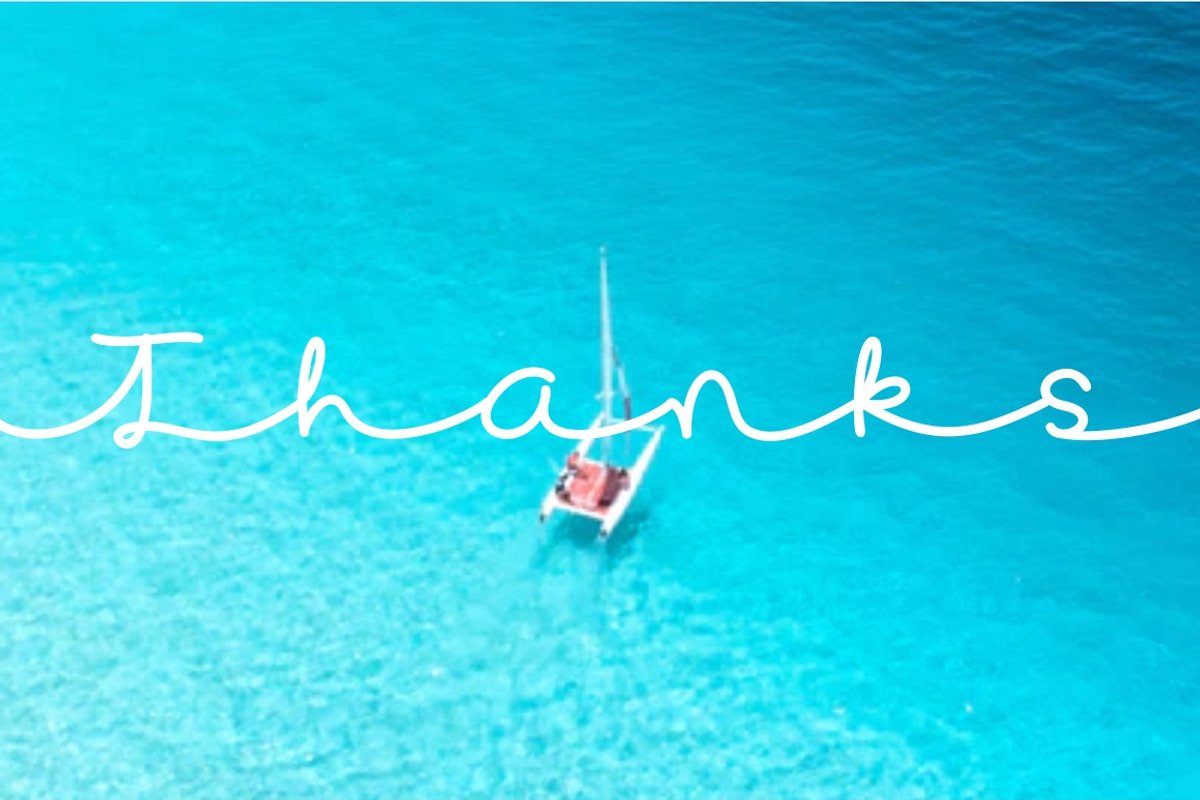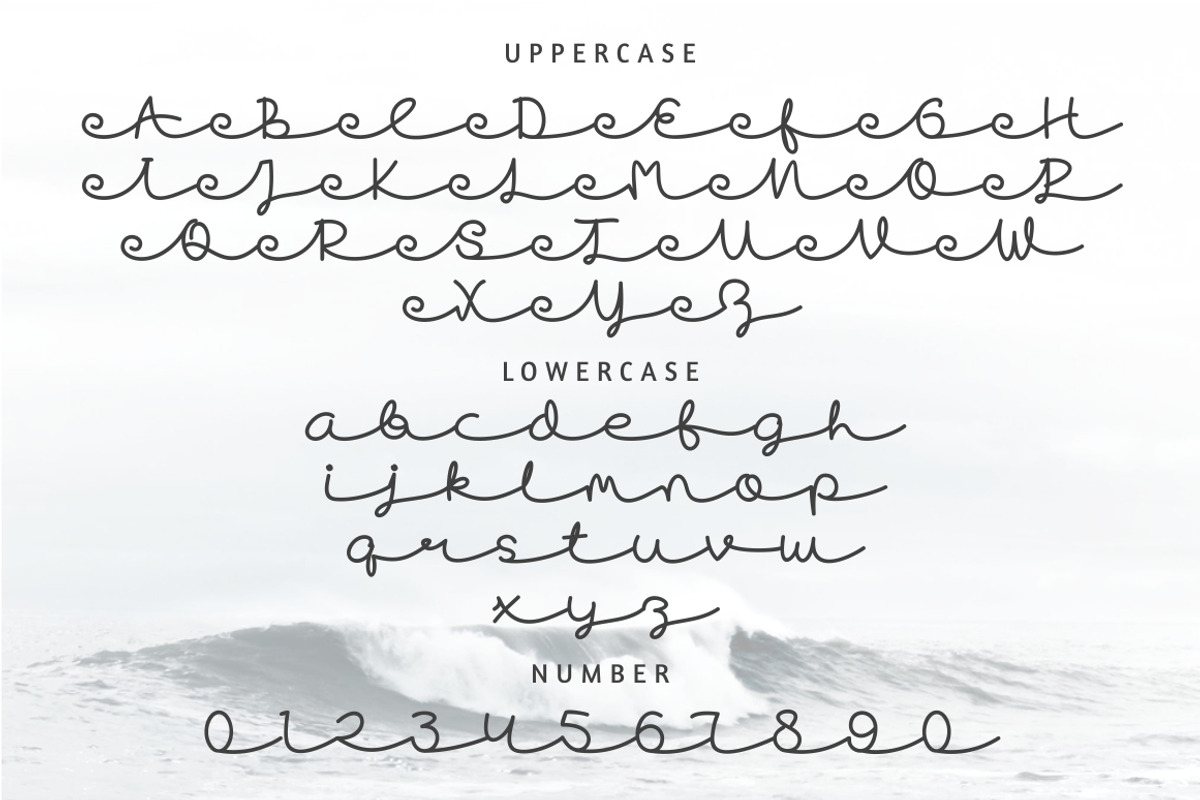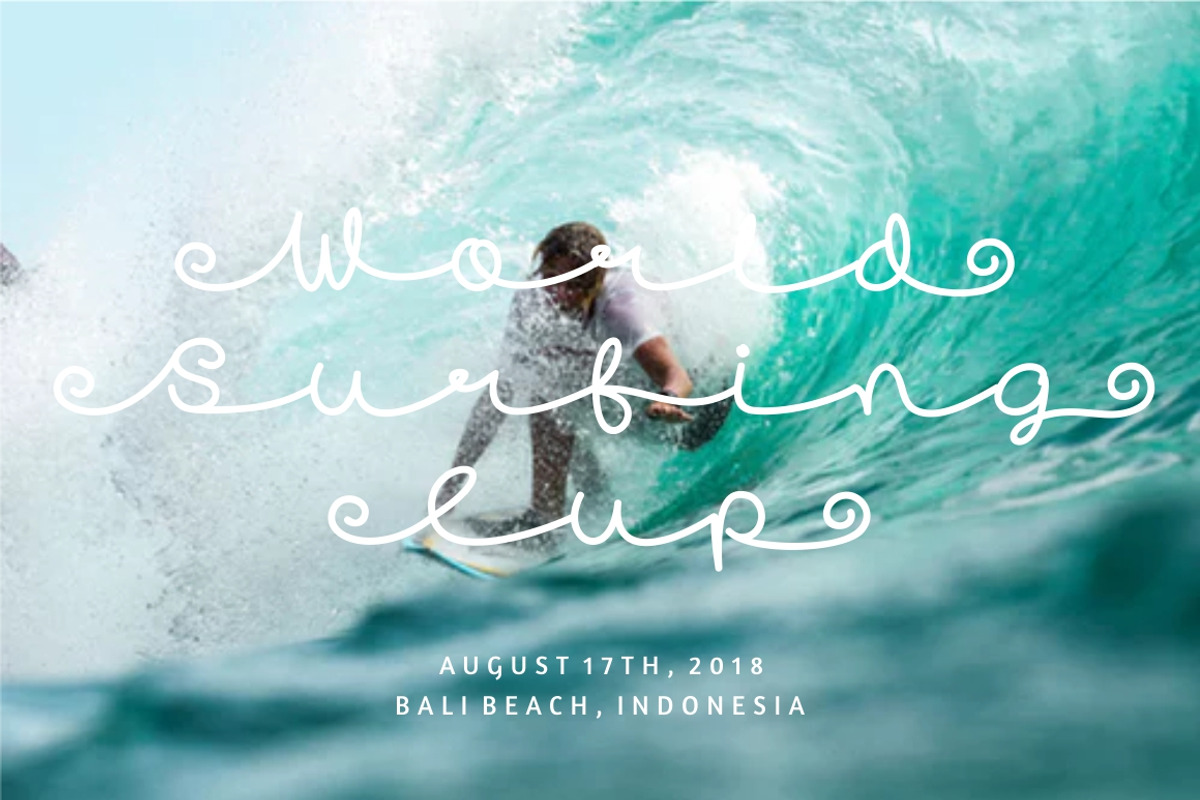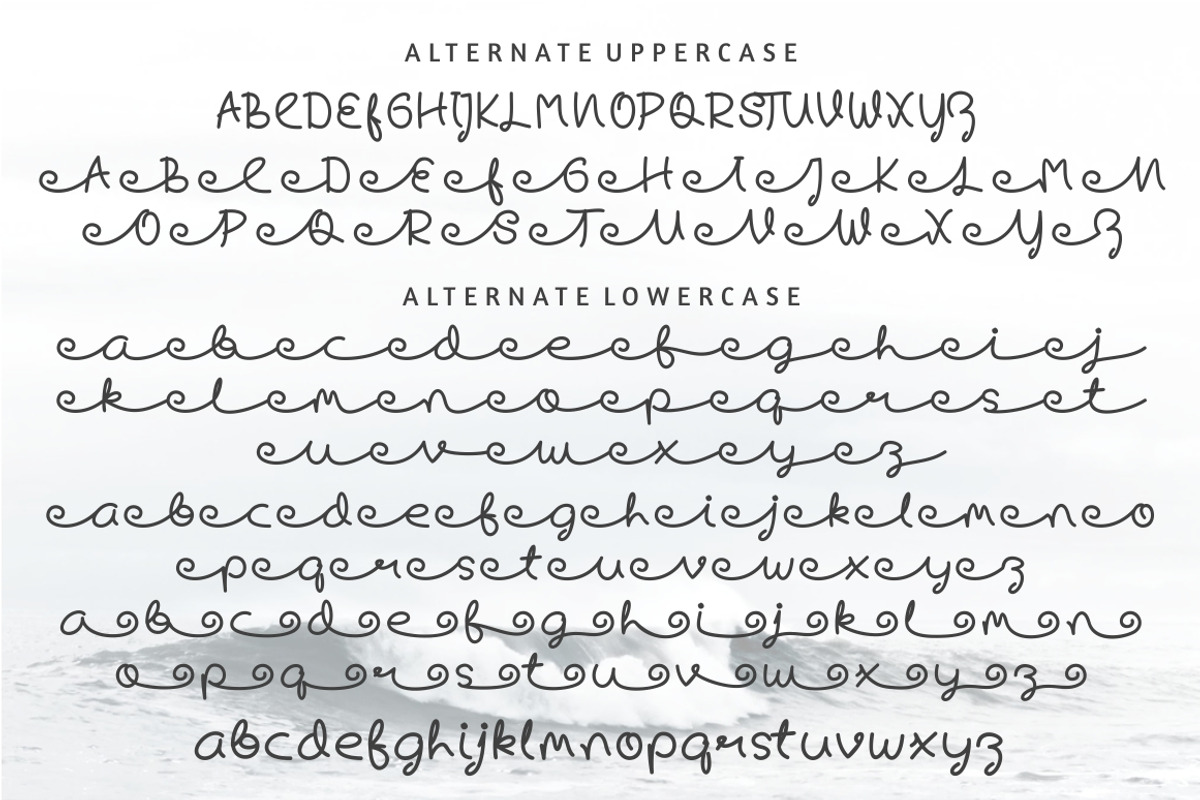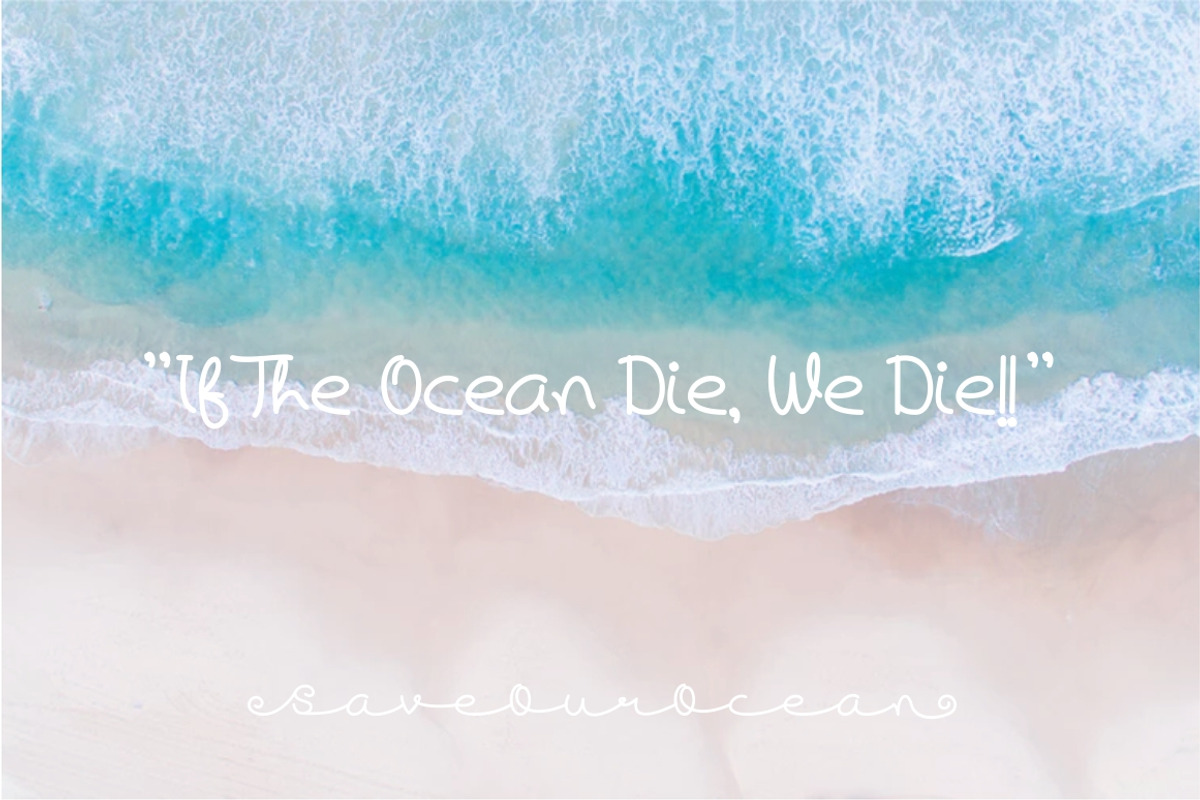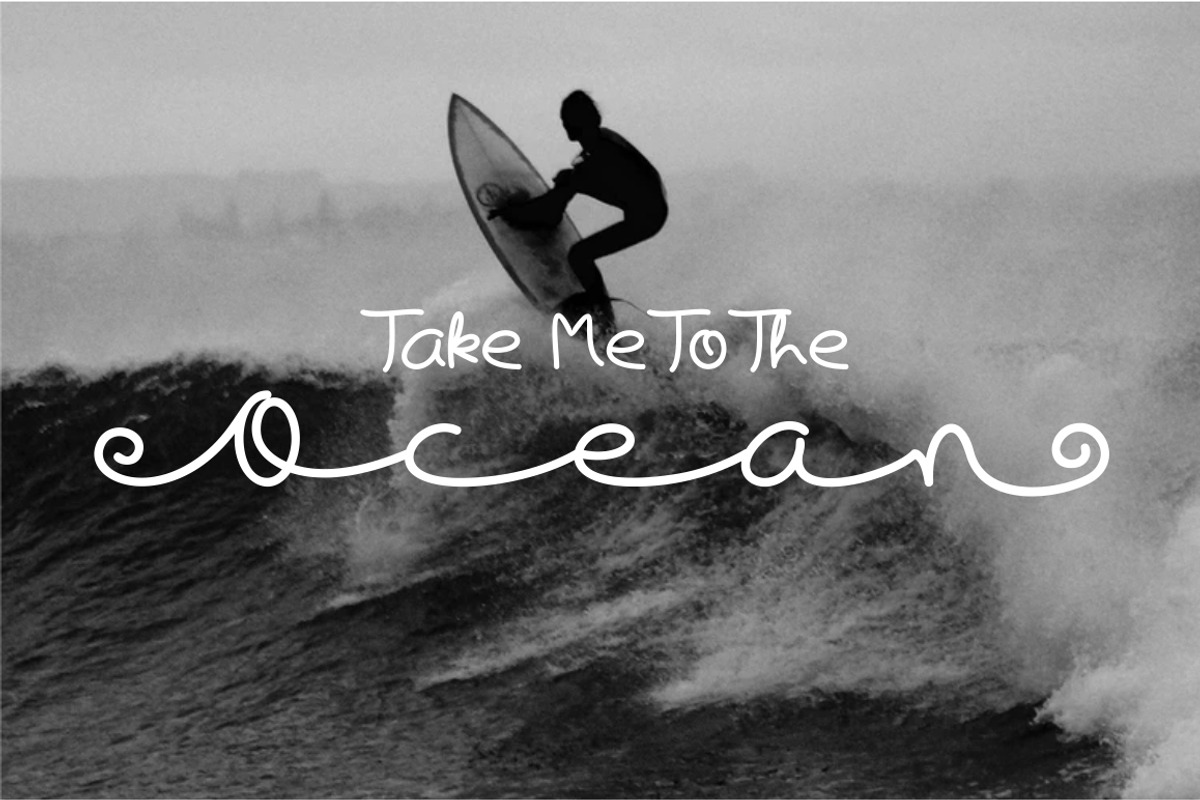
Skywave Typeface
Skywave is a display cursive typeface. Skywave inspired by wave on the ocean, I tried to combine ideas from waves into a typeface. This typeface is great for logos, tittle, headline, tagline, tshirt, handwritten quotes, product packaging, poster, merchandise, social media, labels, branding, greeting cards, etc.